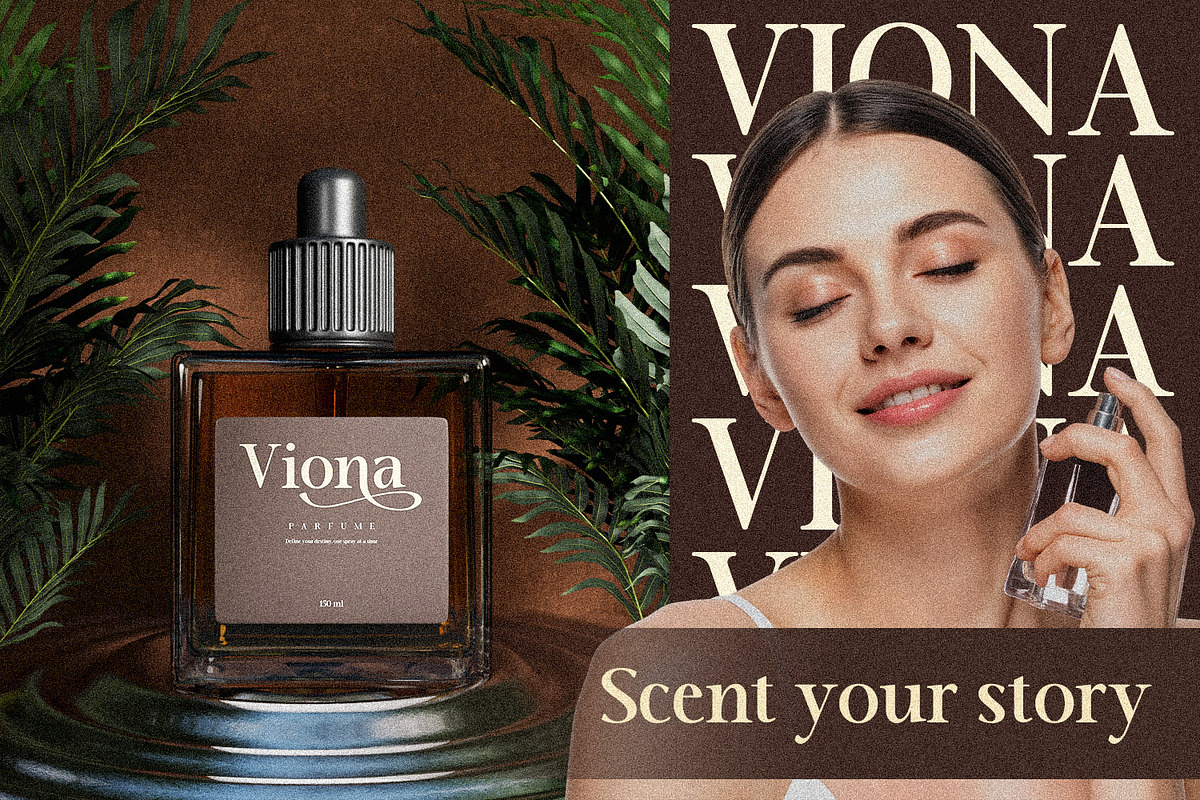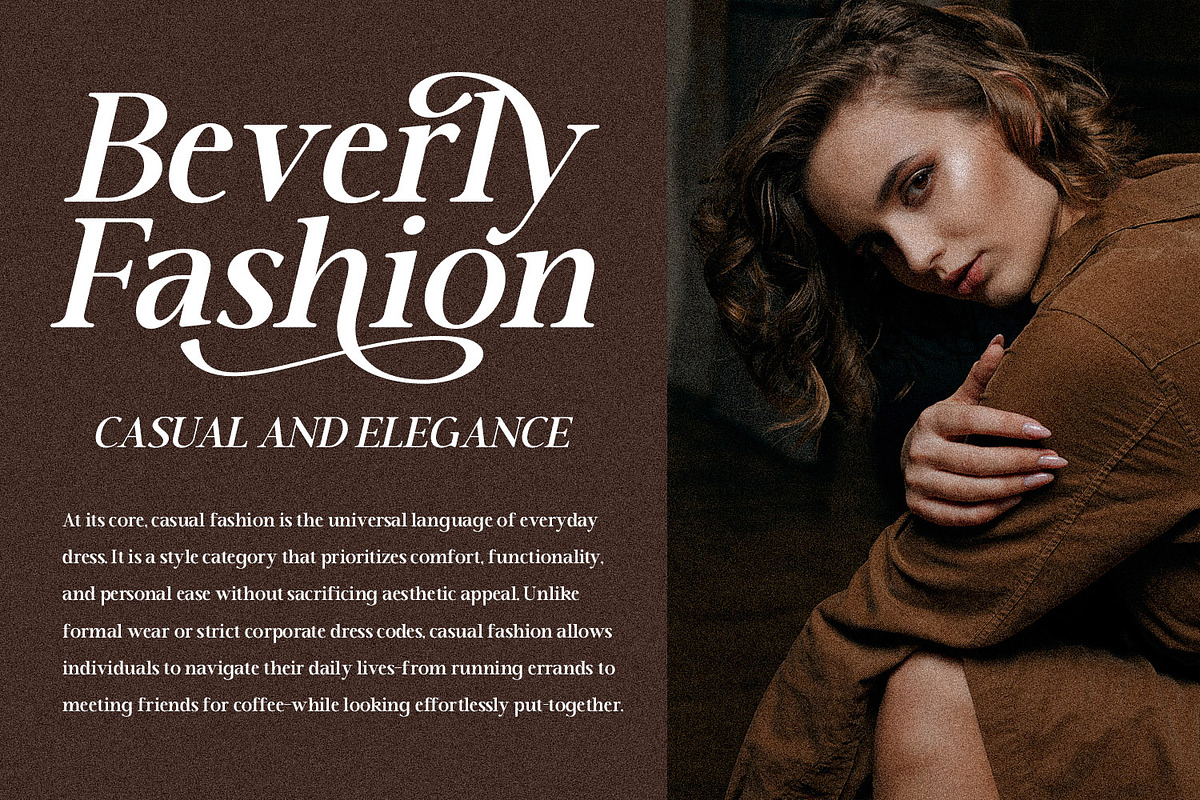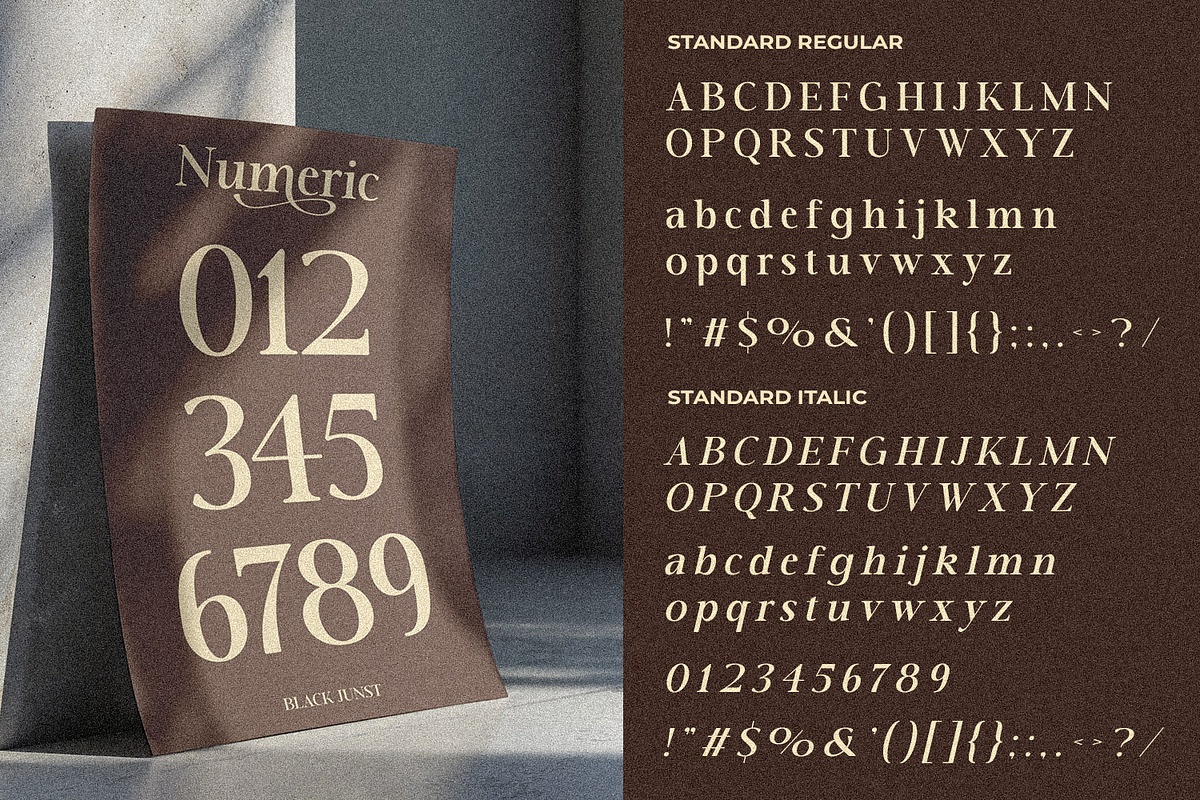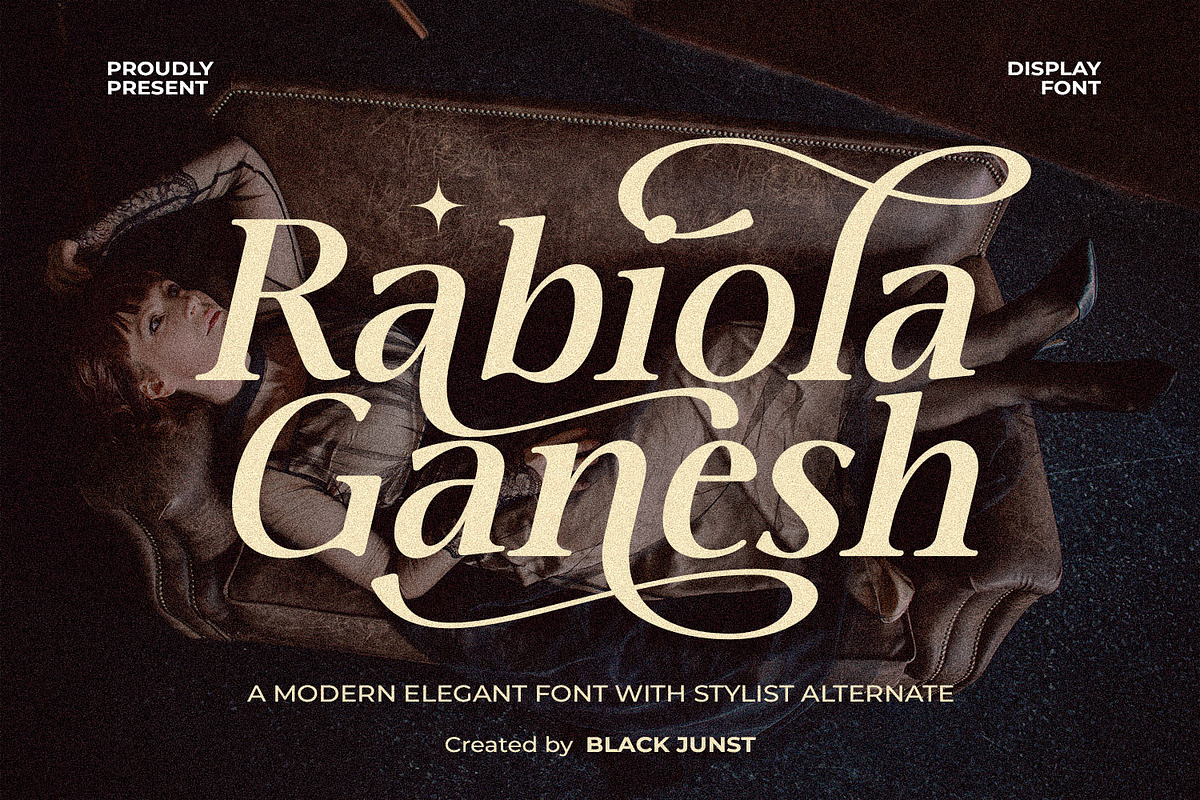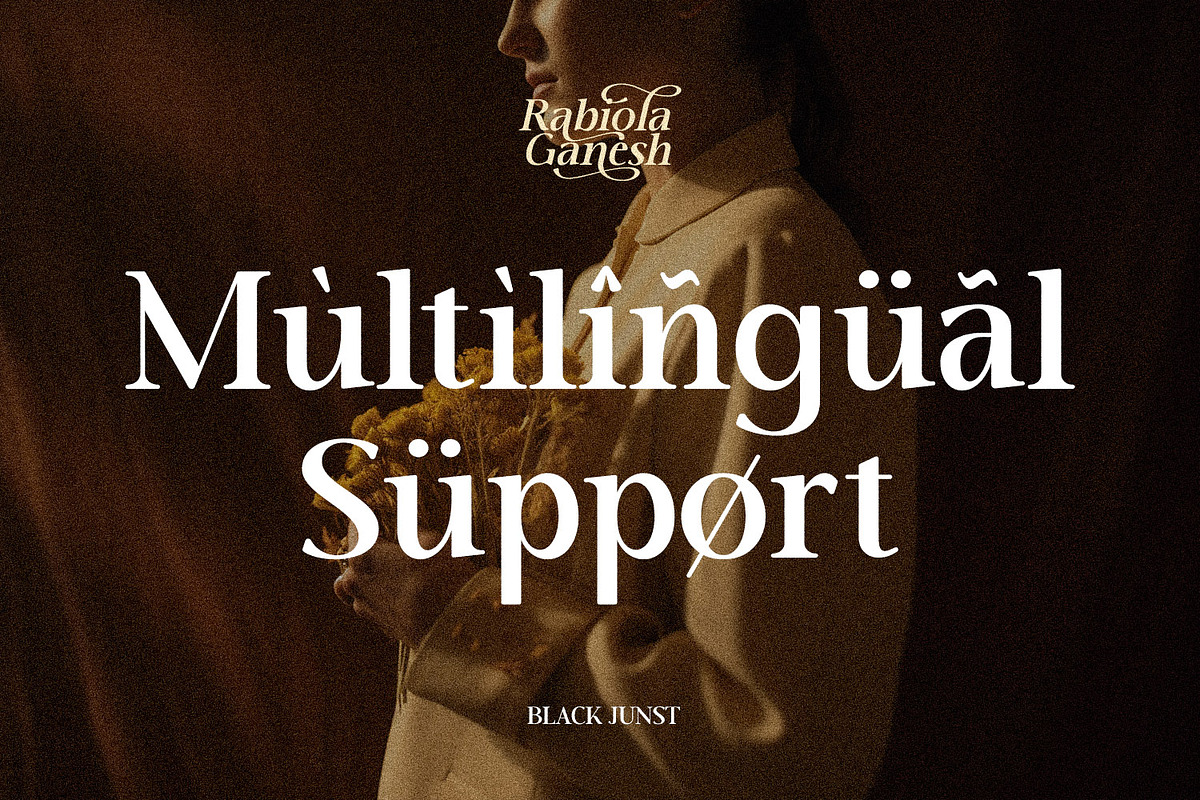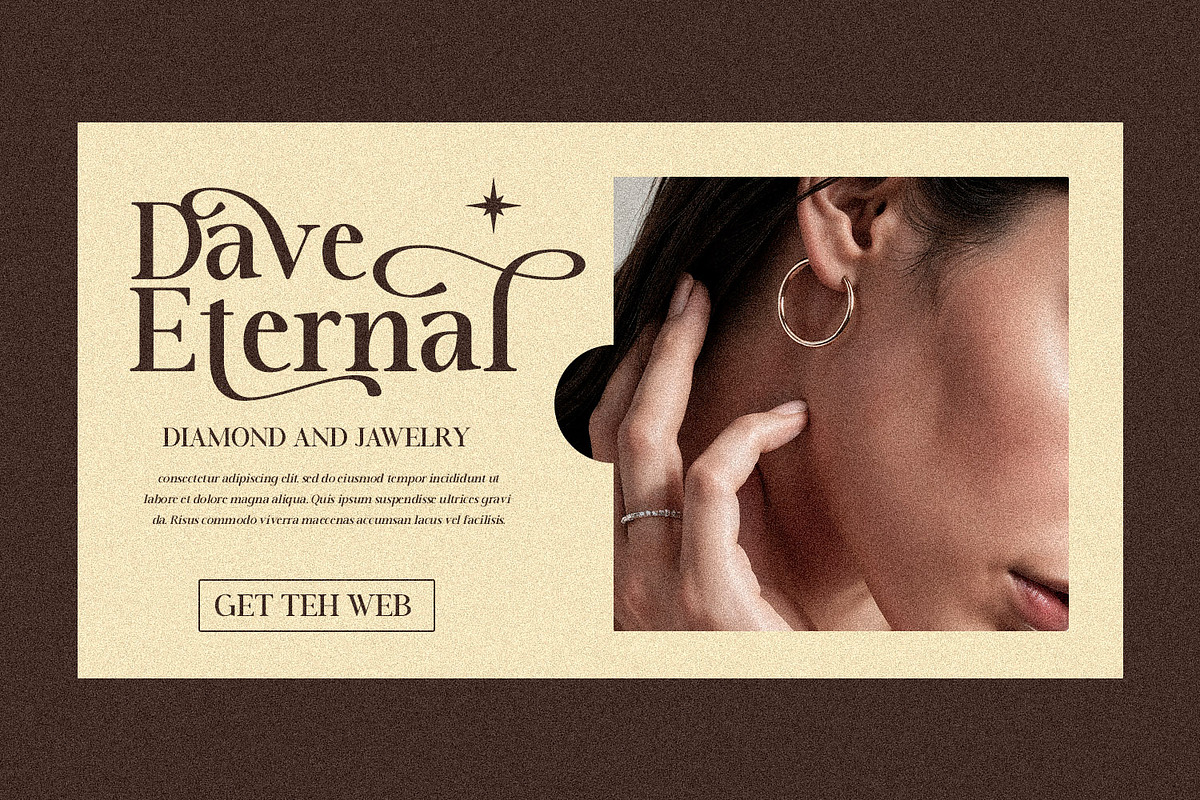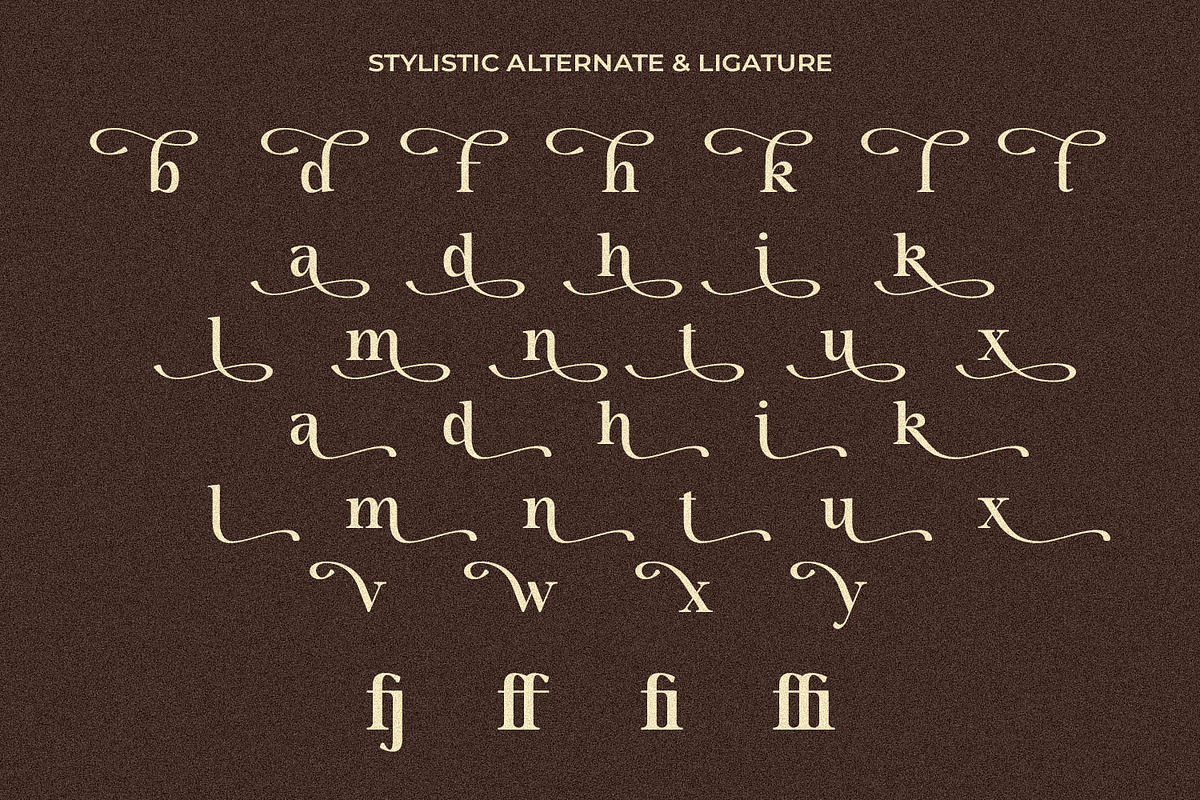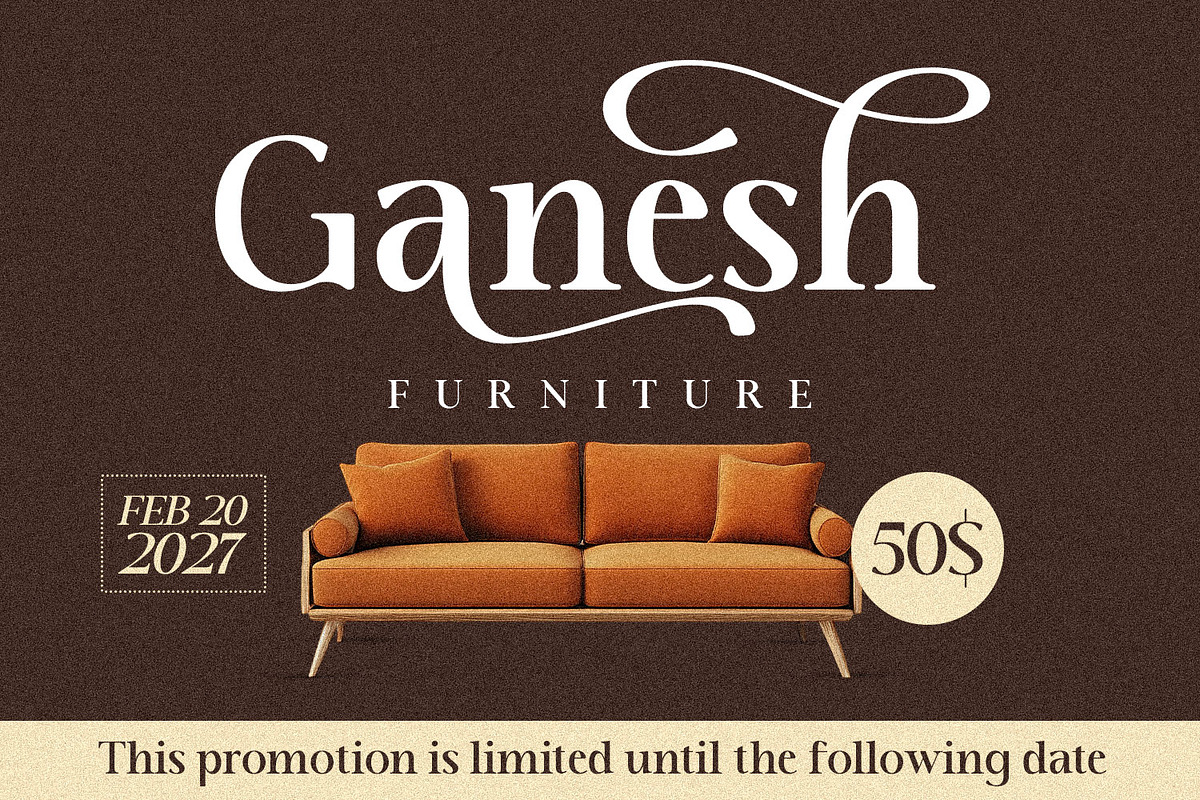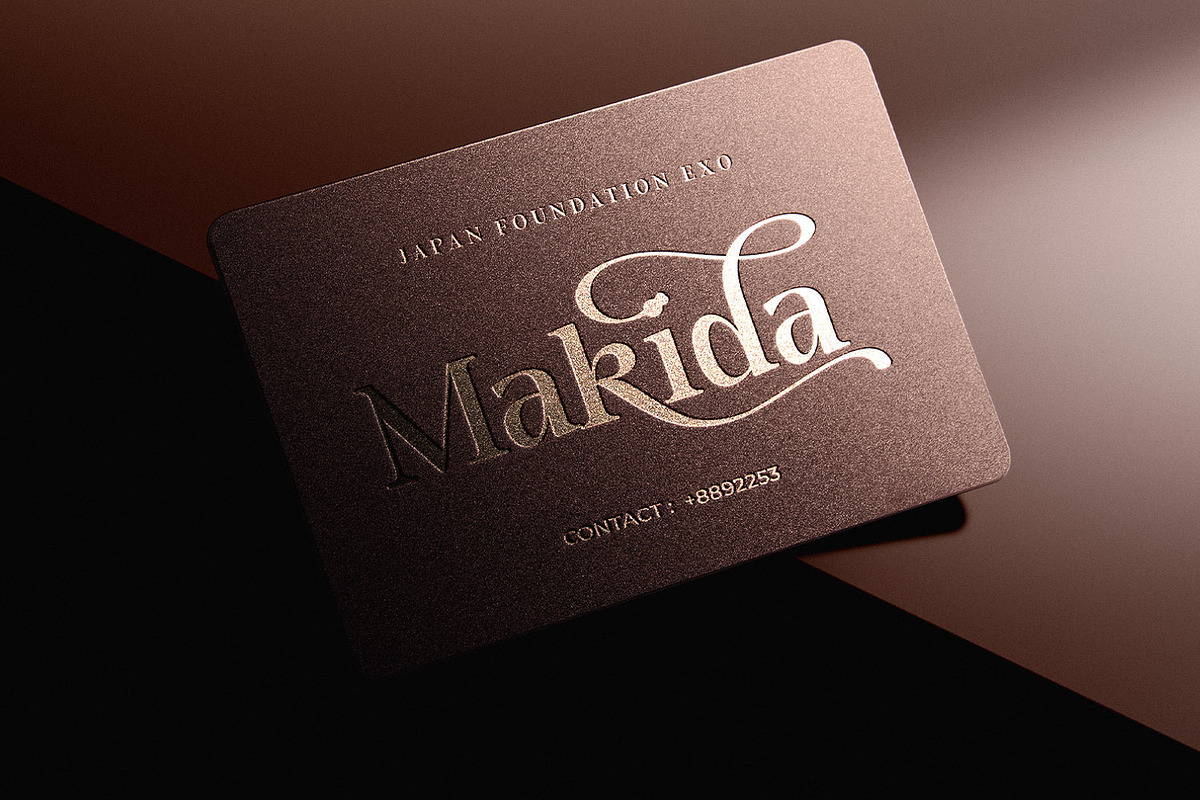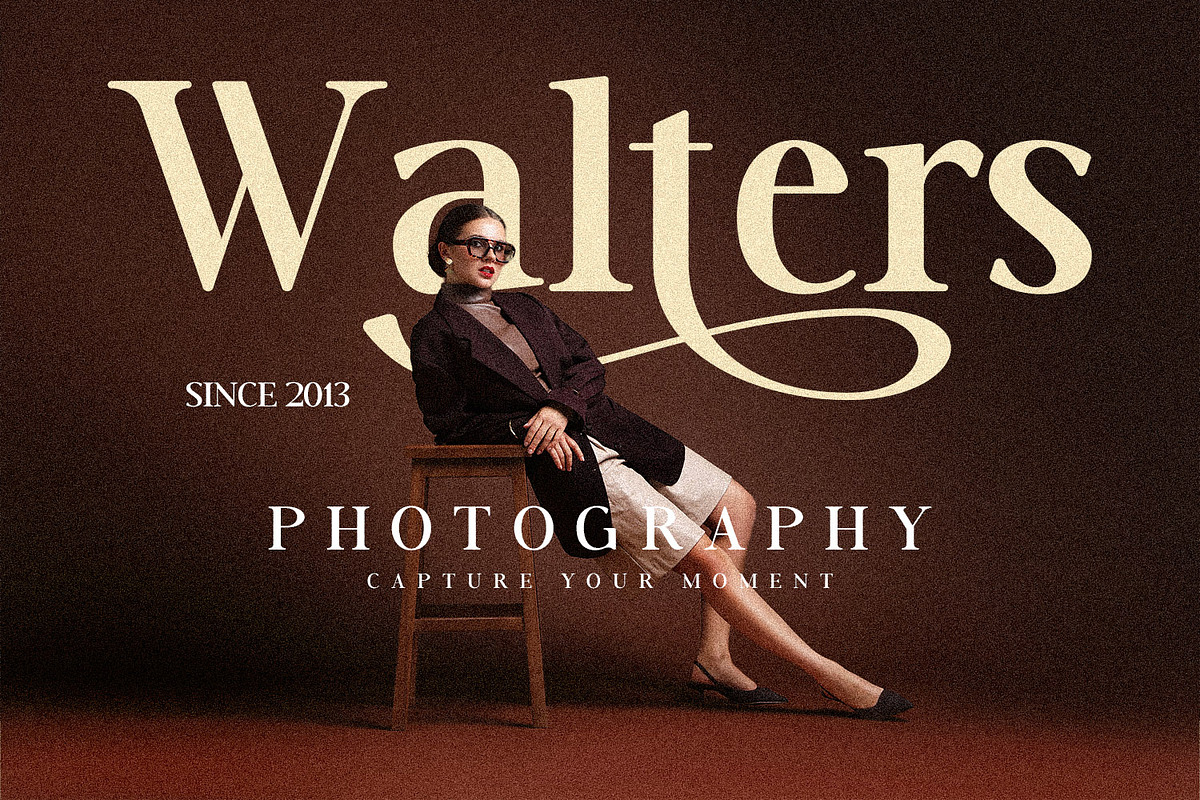
Rabiola Ganesh - Modern Serif
Rabiola Ganesh is a sophisticated modern serif display font that blends timeless elegance with contemporary luxury. Designed with graceful curves, high-contrast strokes, and stunning stylistic alternates, this font creates a strong visual impact for premium branding, fashion editorials, wedding designs, beauty products, luxury packaging, and upscale marketing materials.
Every character is carefully crafted to deliver a refined and distinctive appearance, making your designs stand out with effortless elegance. The beautiful swashes and alternate glyphs provide endless creative possibilities, allowing designers to create unique logos, magazine headlines, social media content, invitations, and branding projects with a high-end aesthetic.
Whether you're building a luxury fashion brand, creating elegant wedding stationery, designing cosmetic packaging, or crafting sophisticated editorial layouts, Rabiola Ganesh offers the perfect balance between classic beauty and modern versatility.
Uppercase & Lowercase Characters
Elegant Swashes
Easy Access to Alternate Characters
Suitable for Branding & Editorial Design
Luxury Branding, Fashion Magazine, Editorial Design, Wedding Invitation, Cosmetic Packaging, Beauty Products, Jewelry Branding, Boutique Logo, Social Media Content, Premium Advertising, Product Packaging, Photography Watermark, Signature Branding, and Elegant Typography Projects.